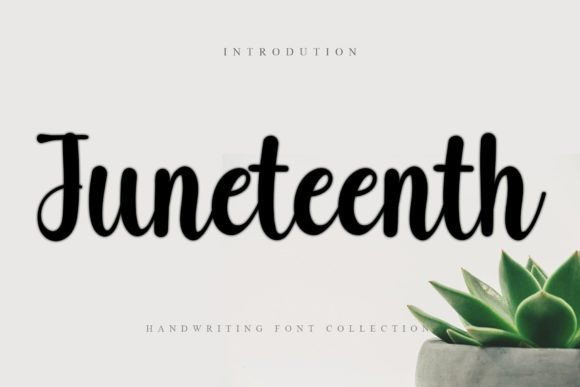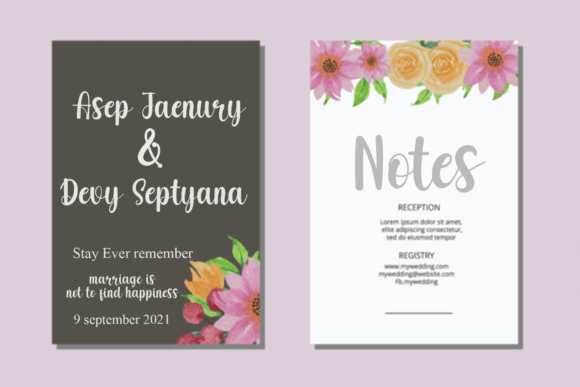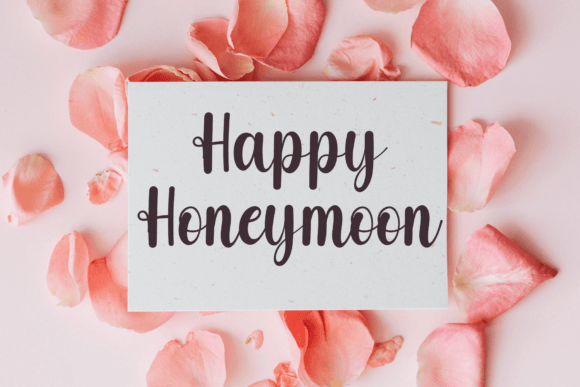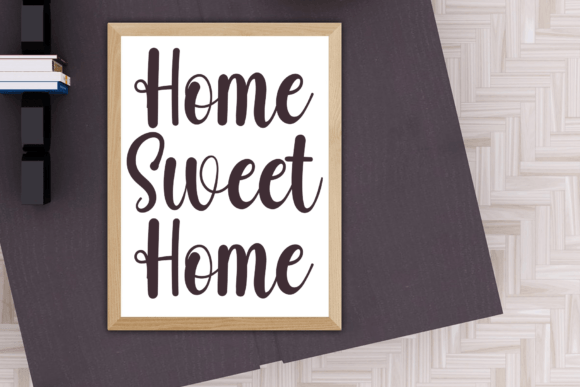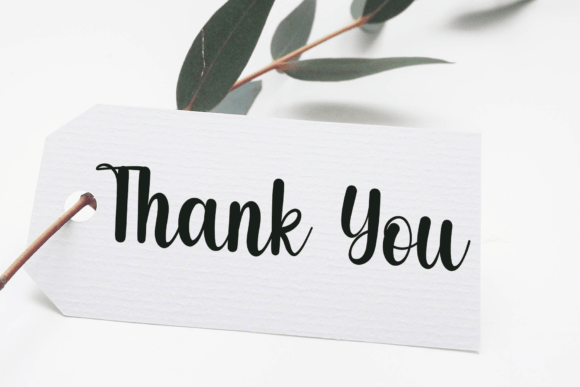
About Juneteenth Font
“Juneteenth” is a stylish and incredibly elegant handwritten font that exudes sophistication and charm. Its graceful and well-crafted letterforms make it a perfect choice for a wide range of design applications, including wedding invitations, thank you cards, quotes, greeting cards, logos, business cards, and any other project that requires a handwritten touch.
The font’s elegant and refined appearance adds a touch of luxury to your designs. Its handwritten style gives your text a personalized and artistic feel, making it suitable for both formal and creative contexts. Whether you’re designing for special events, branding materials, or promotional items, “Juneteenth” enhances the visual appeal of your projects, creating a sense of timeless beauty and elegance.
“Juneteenth” is designed to make a statement, capturing attention with its stylish and sophisticated aesthetic. Its versatility allows it to complement various themes and design elements, making it a valuable asset for designers who want to create visually stunning and memorable pieces of art. The font’s handwritten touch adds a sense of warmth and authenticity to your text, making your designs more engaging and relatable to your audience.
Embrace the elegance of “Juneteenth” and let it elevate your creative projects to new heights. Its timeless and sophisticated style ensures that your designs leave a lasting impression, conveying a sense of grace and refinement. Whether used in print or digital media, this font adds a touch of class to your compositions, making them visually stunning and captivating. With “Juneteenth,” you can confidently create designs that reflect your impeccable taste and attention to detail, making a lasting impact on anyone who encounters your work.